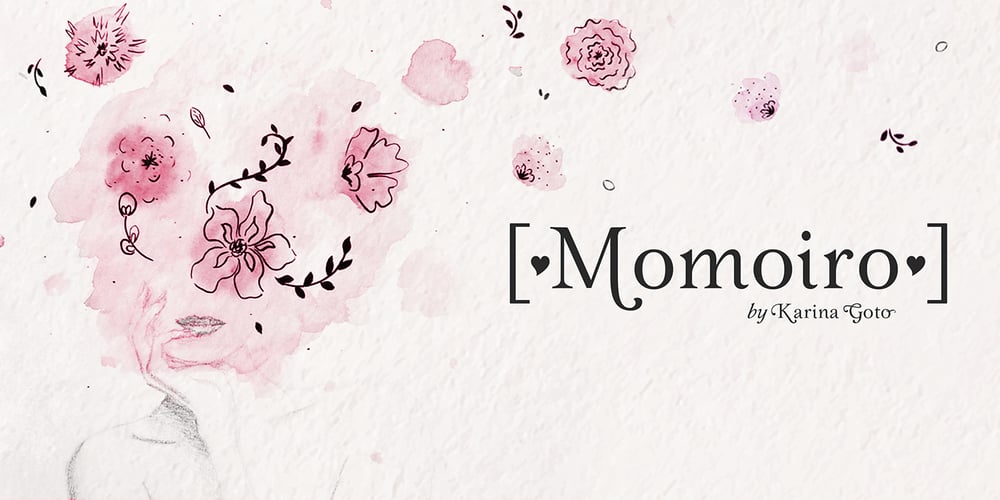
Momoiro
Momoiro font
Momoiro Font Family was designed by Karina Goto and published by Underground. Momoiro contains 4 styles and family package options. Momoiro is a feminine typeface family, designed for editorial use.”The first case in which appeared a fashion content in a magazine was in 1672 in the magazine Le Mercure Galant, which was a magazine of entertainment and varied content, including fashion. But the first illustrated and specialized magazine was Le Journal Des Dammes Et Des Modes, created in 1797. “(Fashion Trends, 2011).On the basis of this historical period, the creation of typography has characteristics of a Baroque type. “In this category we mainly include the types created in the Netherlands during the seventeenth century and whose protagonists are the punch makers Reinhard Voskens and Christoffel Van Dijck. Baroque typography stands out for its accentuated play of irregular axes and contrasts that permeate the text of great vividness. “Therefore it has contrast in the thick and thin strokes, Roman serifs, humanistic axis. With this typography, we are not looking for a re-reading of the baroque, but rather a current typeface with humanistic characteristics of the handwriting, with a brush as a differential.Momoiro comes in two weights plus italics to cover as much design needs as possible. It compliments from OpenType features such as ligatures, swashes, true fractions, old style numerals and stylistic sets.